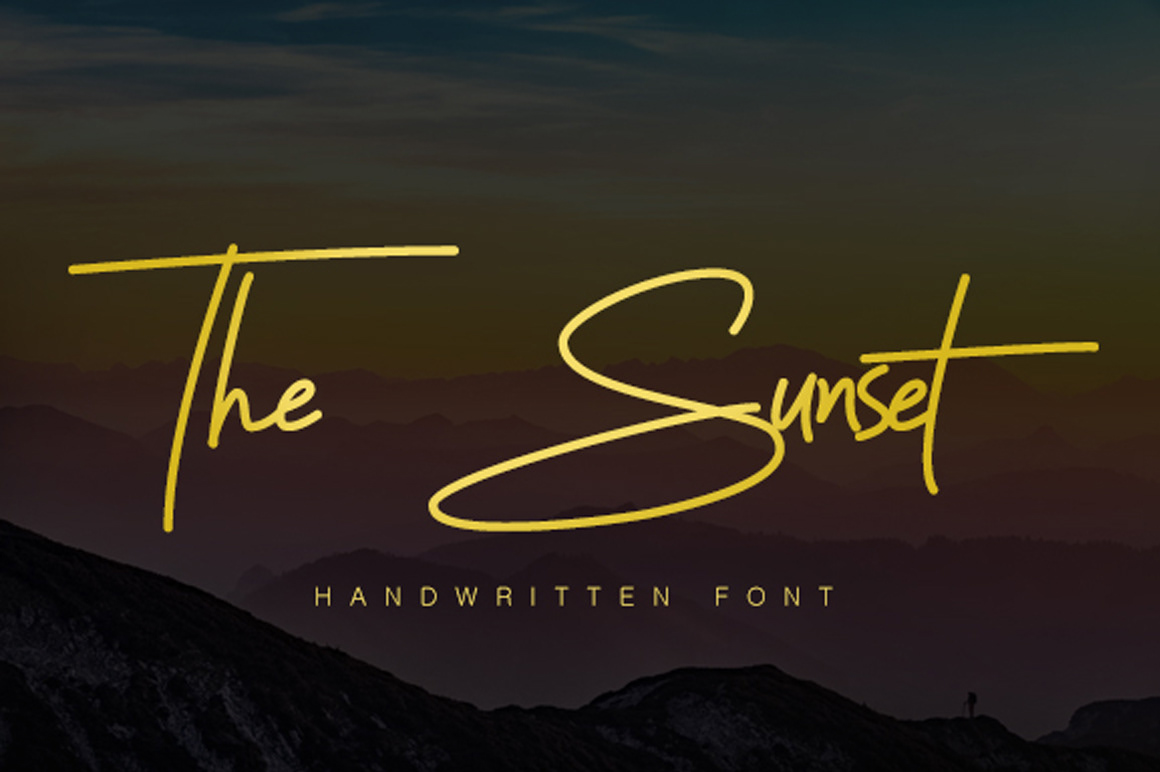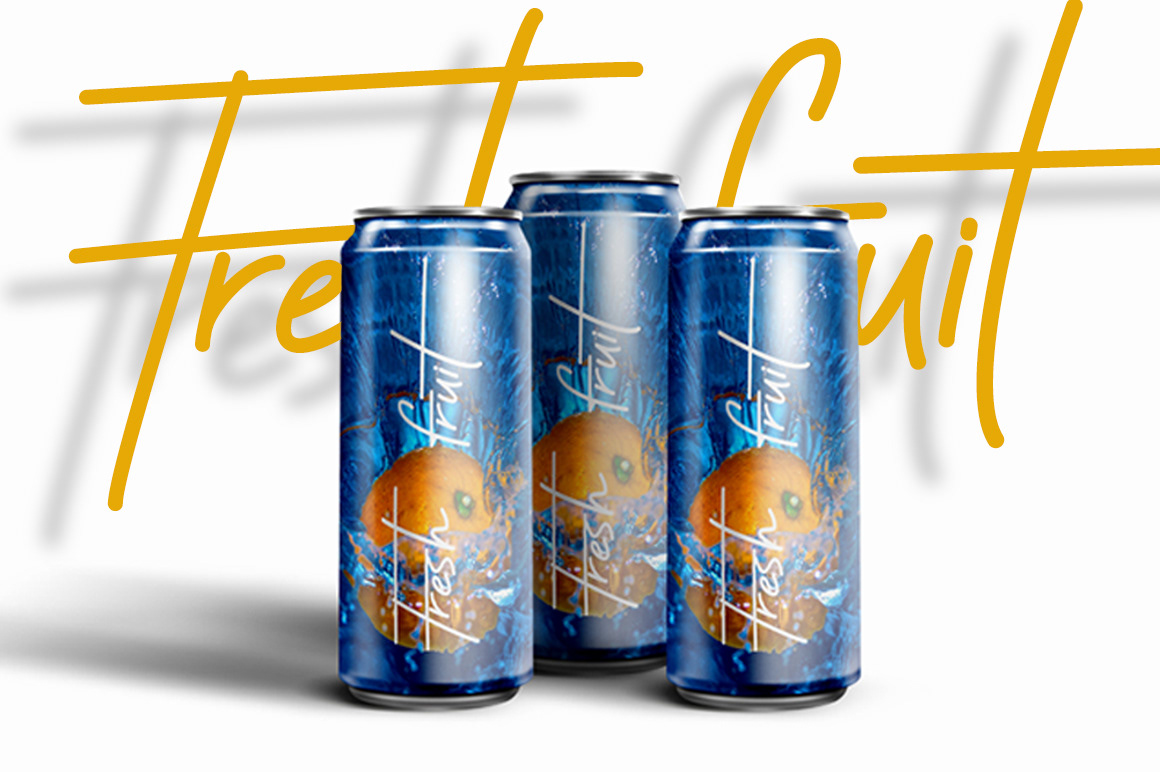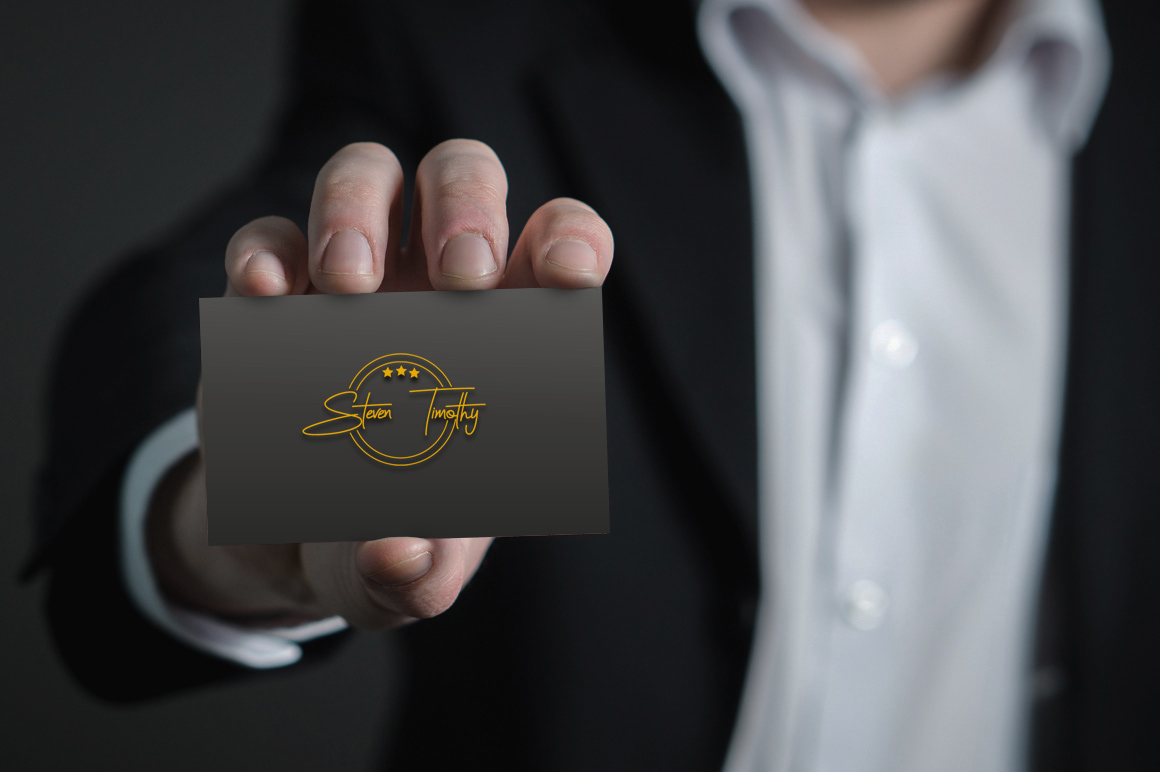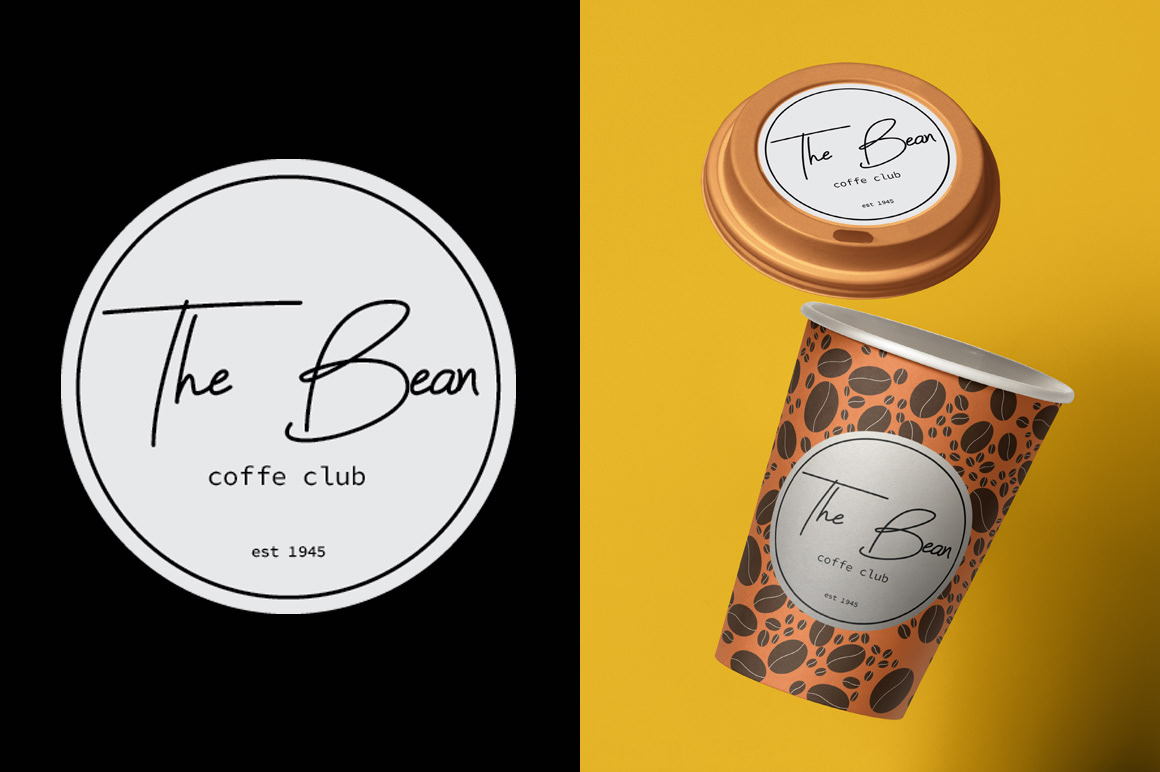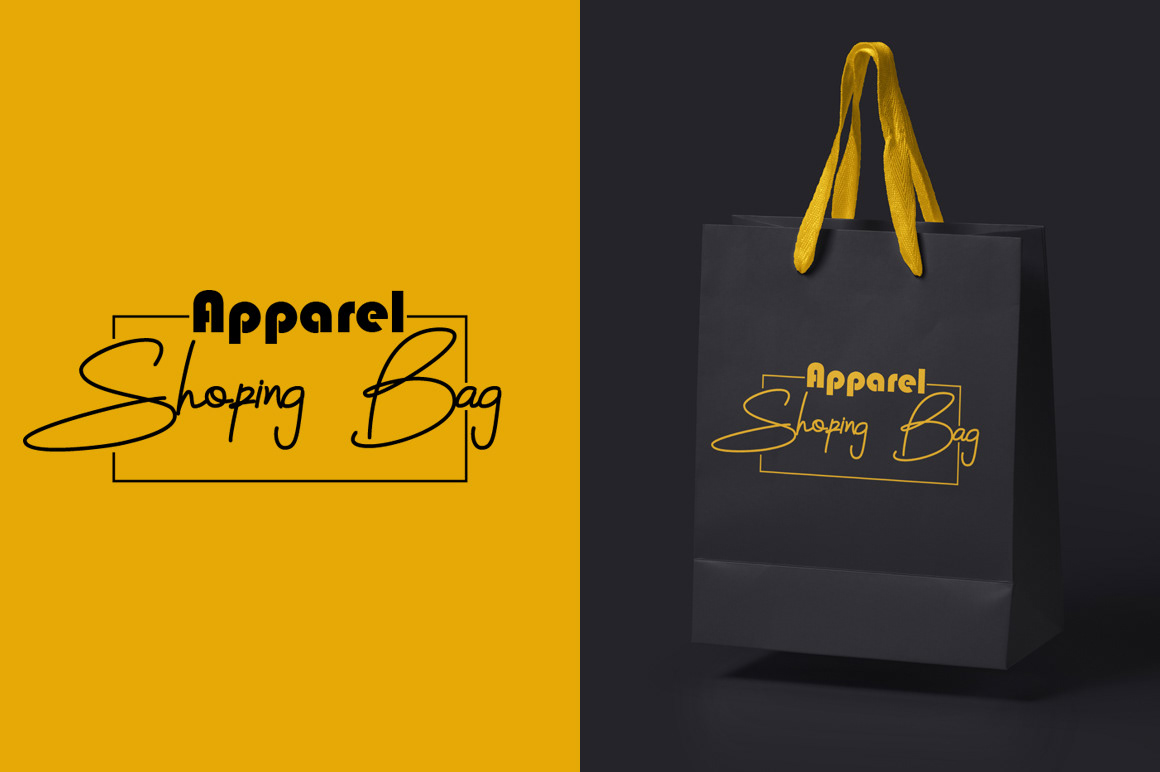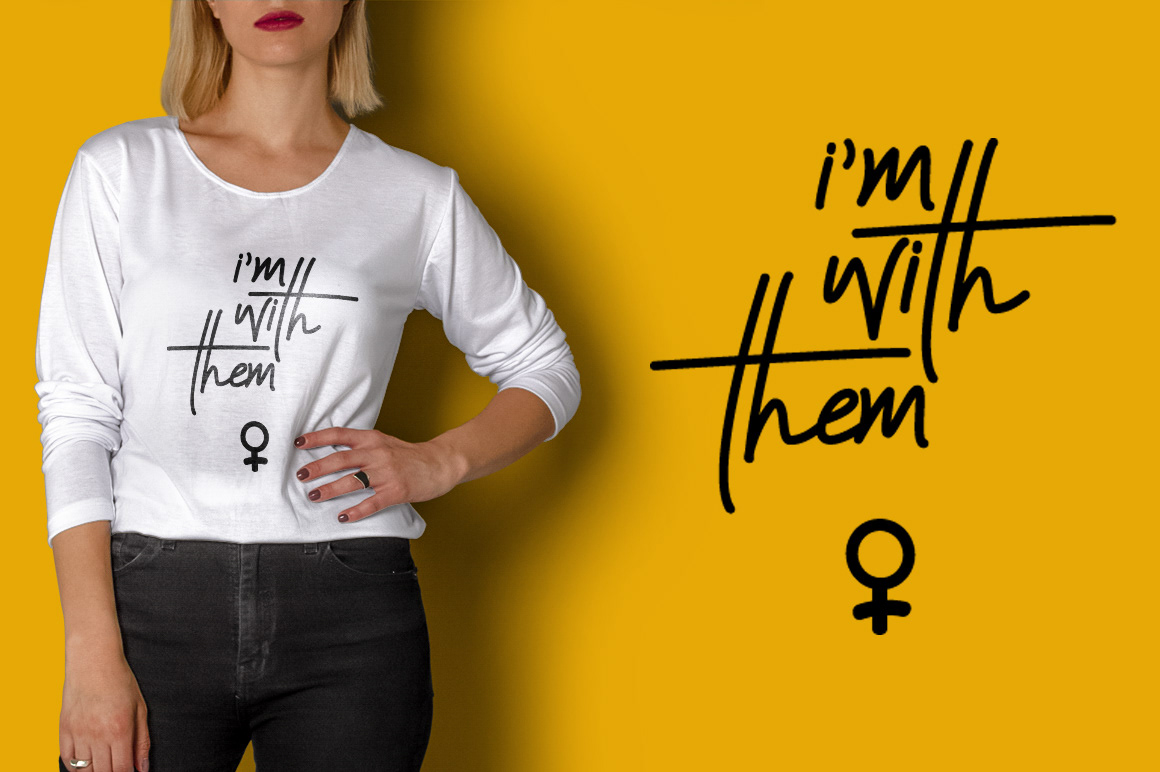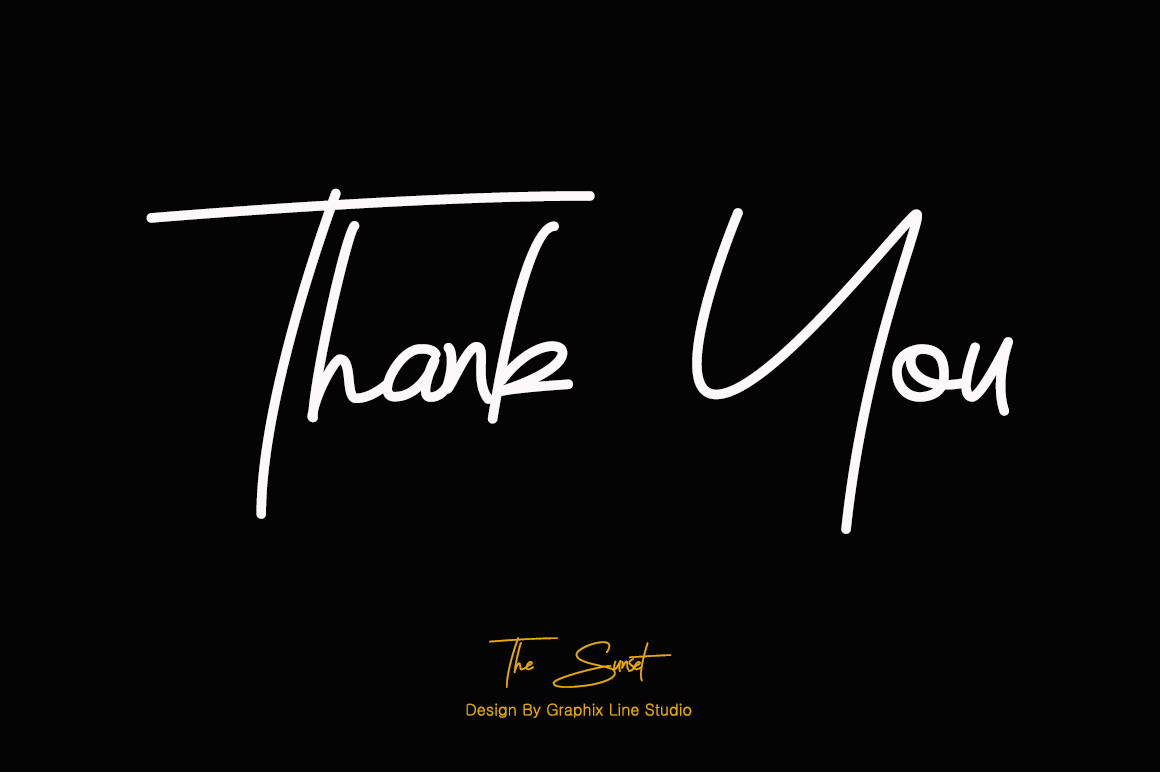
Sunset Signature Font Demo is a trial version of such a stunning handwriting style font by Graphix Line Studio! This font is slim, flowy and fits the summer vibe design really well! Hence, Sunset signature can be your next favorite font for your branding, logo design, headline, and so much more! Download now and give it a try!
Sunset Signature Font Demo
Sunset Signature Font Demo is a trial version of such a stunning handwriting style font by Graphix Line Studio! This font is slim, flowy and fits the summer vibe design really well! Hence, Sunset signature can be your next favorite font for your branding, logo design, headline, and so much more! Download now and give it a try!